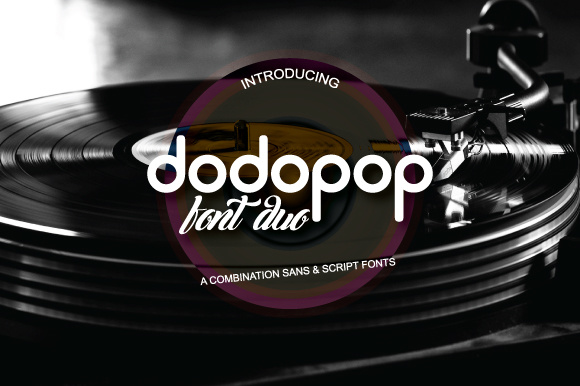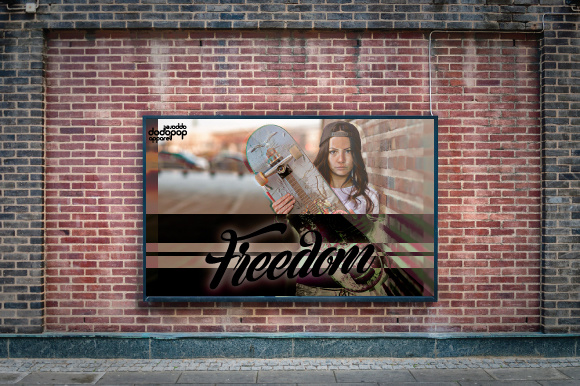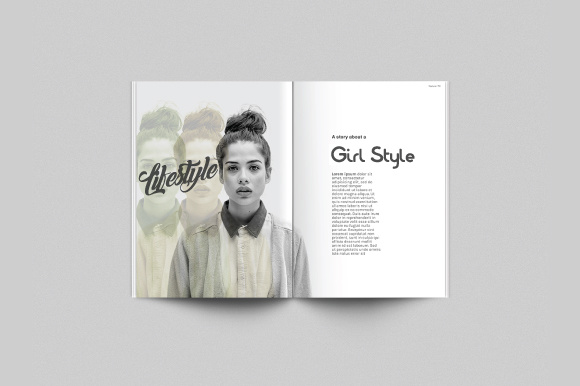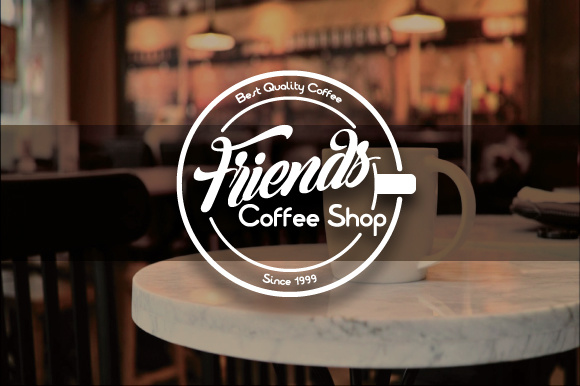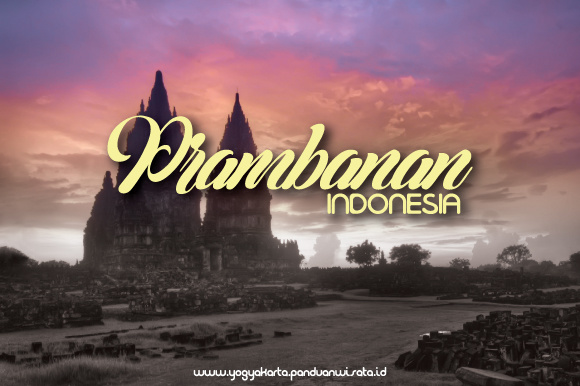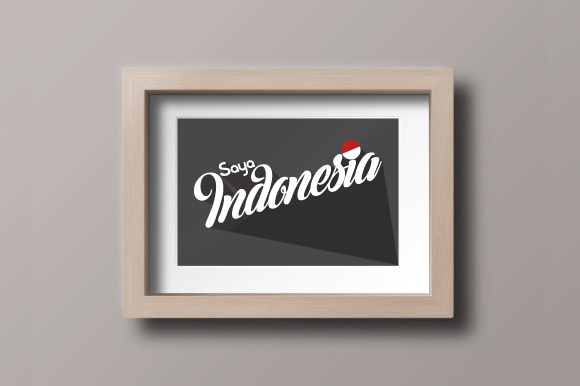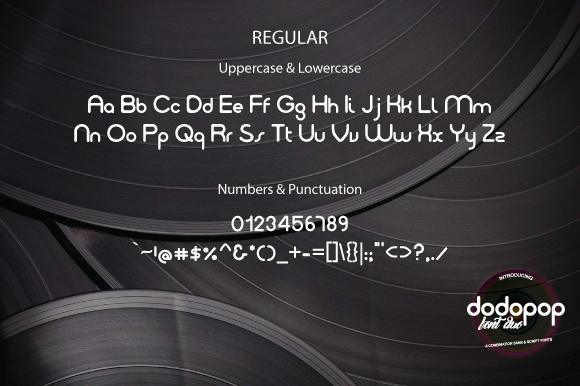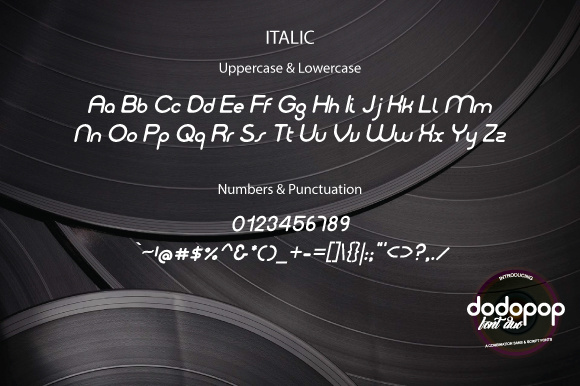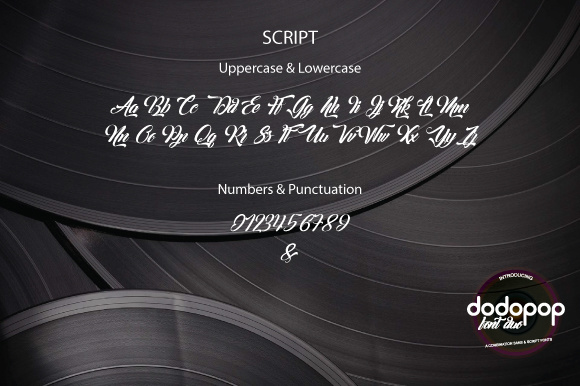
HomeScript FontsDodopop Duo Font Script Fonts Dodopop Duo Font FacebookXPinterestWhatsApp Dodopop Duo Font Poster 2 Dodopop Duo Font Poster 3 Dodopop Duo Font Poster 4 Dodopop Duo Font Poster 5 Dodopop Duo Font Poster 6 Dodopop Duo Font Poster 7 Dodopop Duo Font Poster 8 Dodopop Duo Font Poster 9 About Dodopop Duo Font The Dodopop Duo is a combination of a clean rounded Sans Serif and a fun playful script. DOWNLOAD ON CREATIVE FABRICAThis font is sold and delivered by Creative Fabrica. Font Canyon may earn a commission if you buy through this link. People also explored Hanahelia Font Mornlight Font Spooky Font Briefing Font Red Valentine Font Stickers Font New Brother Font Hucklebuck Alove Hoolena Font 544 0 TagsDodopop Duo Font Previous articleFreedom Casablanca FontNext articleHim Font LEAVE A REPLY Cancel reply Comment: Please enter your comment! Name:* Please enter your name here Email:* You have entered an incorrect email address! Please enter your email address here Website: Save my name, email, and website in this browser for the next time I comment. Personal Use Free Font Slice Personal Use Free Read more about this font Baby Cute Personal Use Free Read more about this font I Am Exceptional Personal Use Free Read more about this font Machine House Personal Use Free Read more about this font BLOG Best Fonts for T-Shirt Design – Top 2025 Picks In 2025, t-shirt design has become more than just fashion—it's a form of self-expression. Whether you're... Top 7 Google Fonts Alternatives for Faster and Privacy-Friendly Web Design (2025) Elegant Wedding Invitation Fonts – Handwritten & Script Fonts Top 10 Handwritten Fonts That Elevate Your Designs